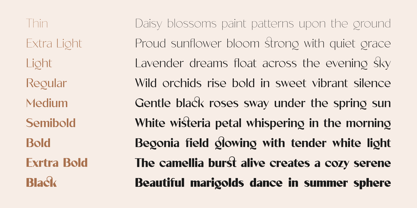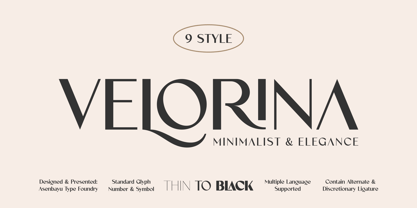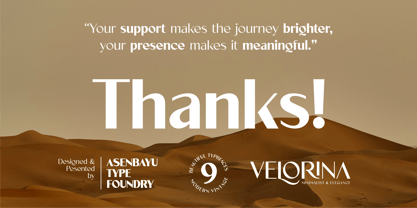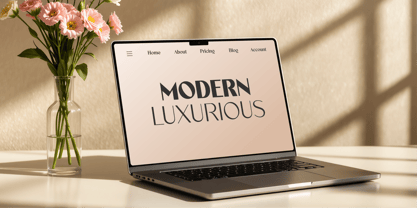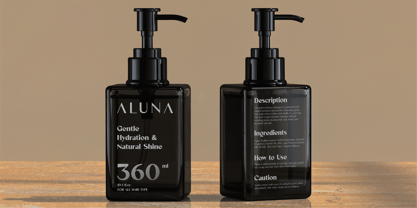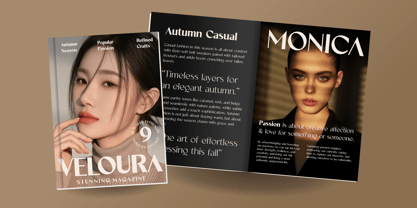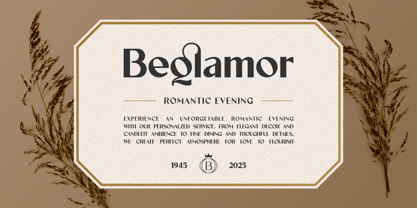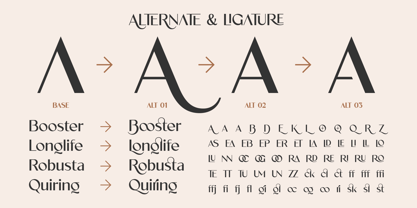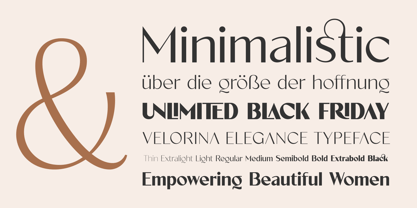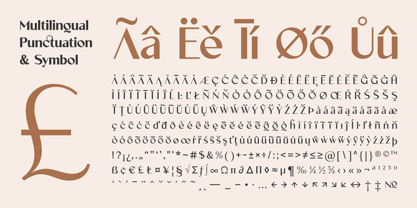
Velorina
by Asenbayu
The Velorina Font Family was designed by Bayu Noor Witarsa and published by Asenbayu. Velorina contains 9 styles and family package options.
Velorina font family embodies a modern and elegant aesthetic, designed with clean geometry and subtle sophistication. With 9 versatile weights, this font offers a complete range, from delicate, thin strokes to bold black shapes. While maintaining the clarity of a sans serif, its outlines are subtly refined with serif-inspired nuances, giving this font a distinctive character that balances minimalism with timeless elegance. Perfect for branding, logos, editorial layouts, and digital interfaces, this typeface brings flexibility and a touch of refinement to any design project.
Velorina font features: 9 Weights (Thin to Black), standard glyph, stylistic alternates, stylistic ligatures, symbol, punctuation and multiple languages supported.
Designers: Bayu Noor Witarsa
Publisher: Asenbayu
Foundry: Asenbayu
Design Owner: Asenbayu